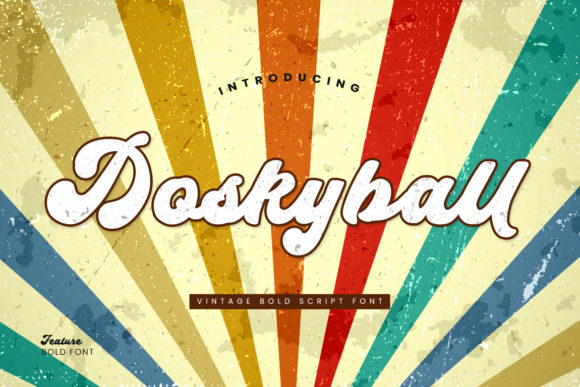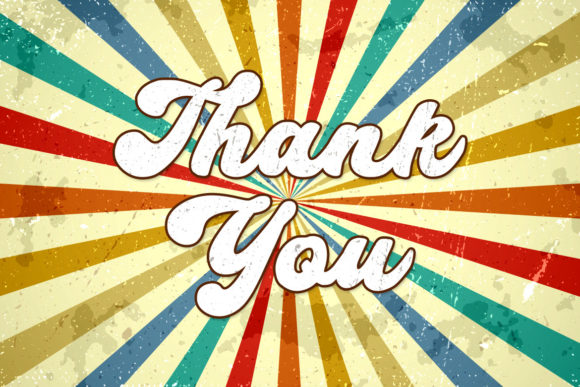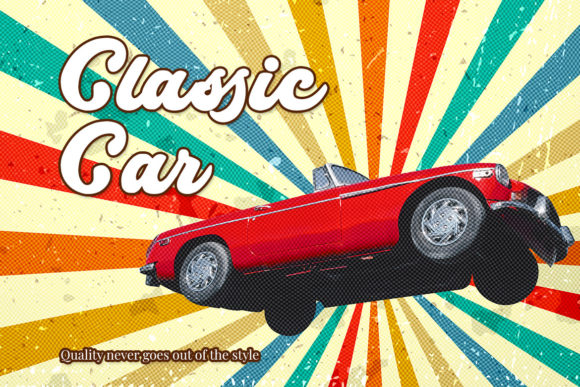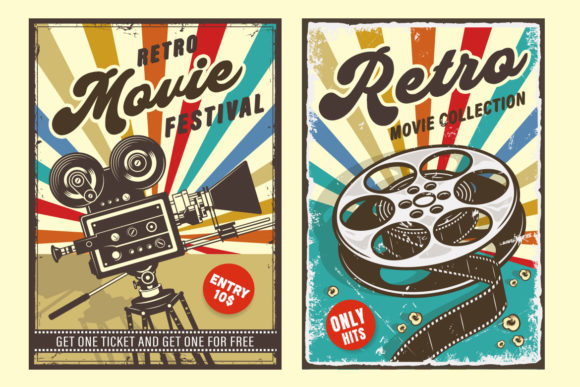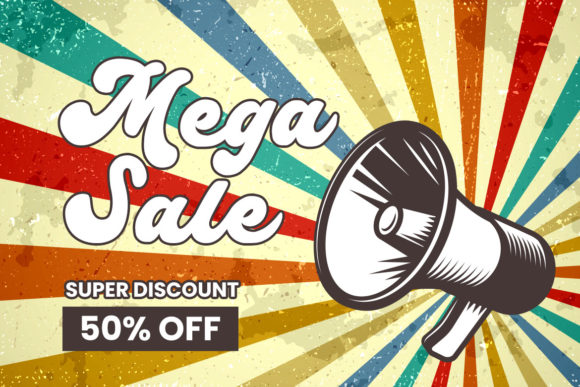
About Doskyball Font
Doskyball is a bold and retro handwritten font reflecting stylish lettering. This font is inspired by pop and urban culture. It is PUA encoded, which means you can access all of the glyphs and swashes with ease!